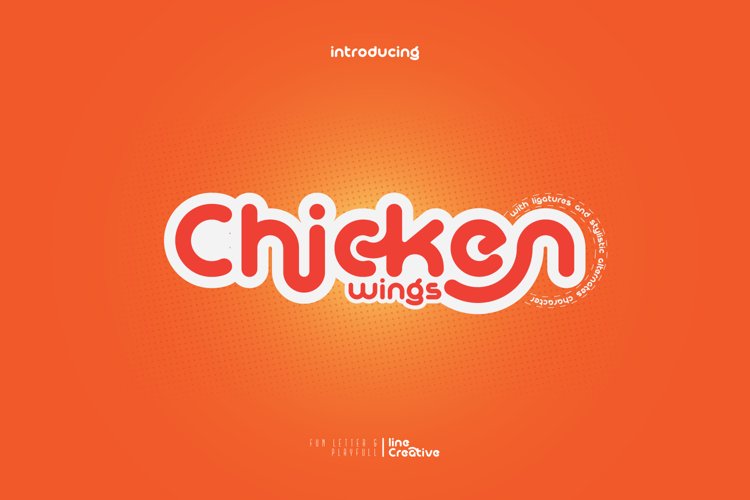
Chicken Wings A playful display font,It's Perfect for logo, layout,headers, or oven large scale artwork
• Chiken Wings- A clean San serif font including Upper & Lowercase characters,
• Ligatures Character & Stylistic alternates Character
• Supports Multi linguage (Latin Western Europe), Numbers and Punctuation